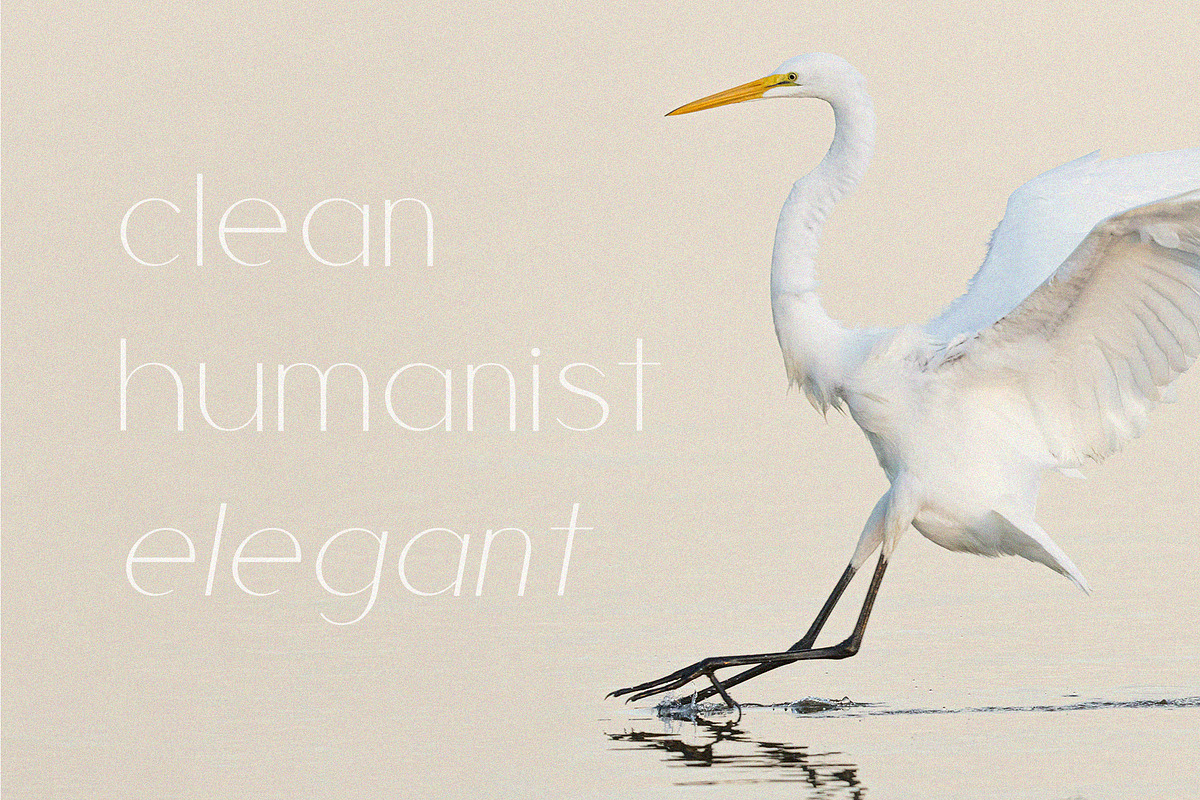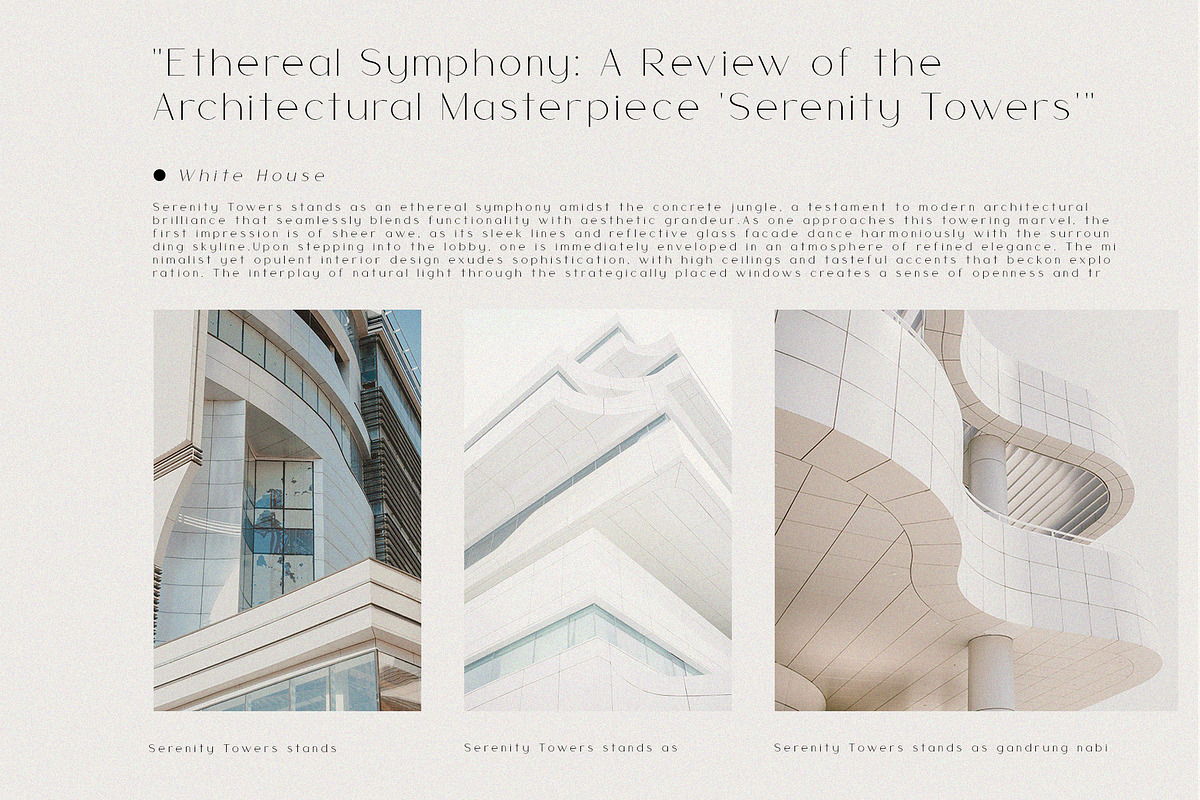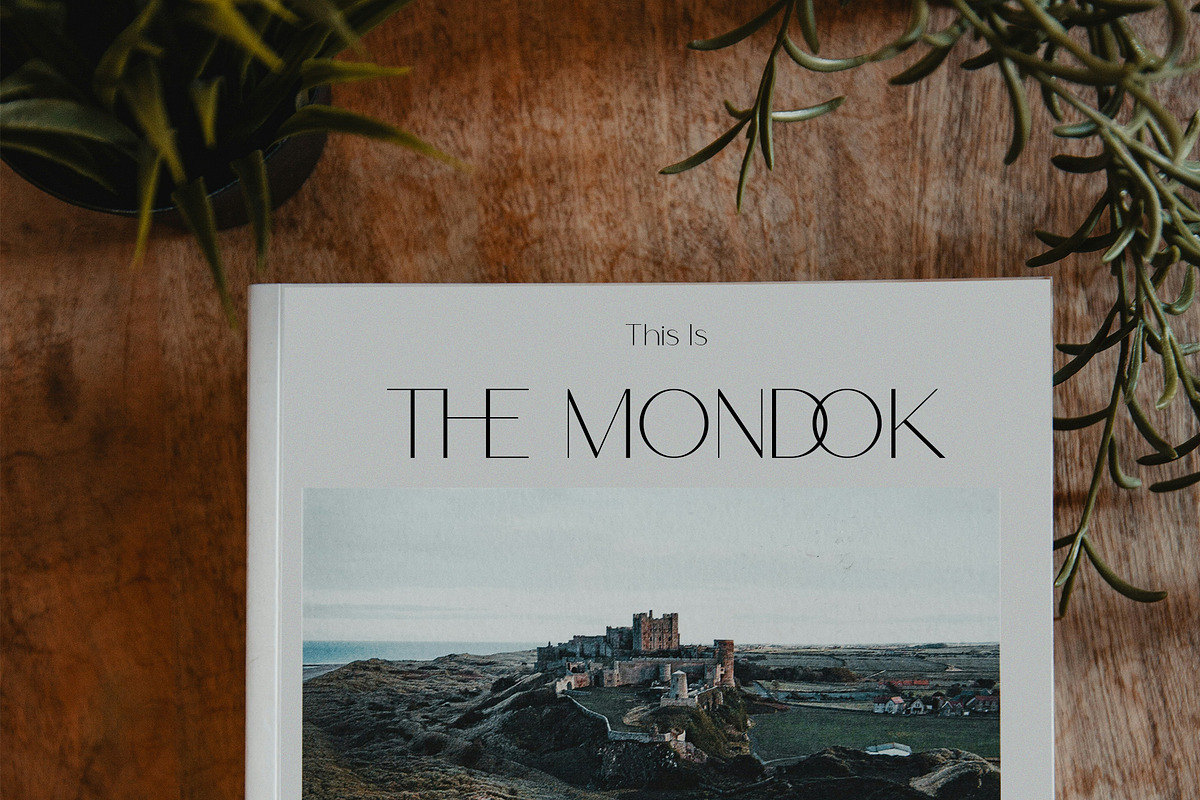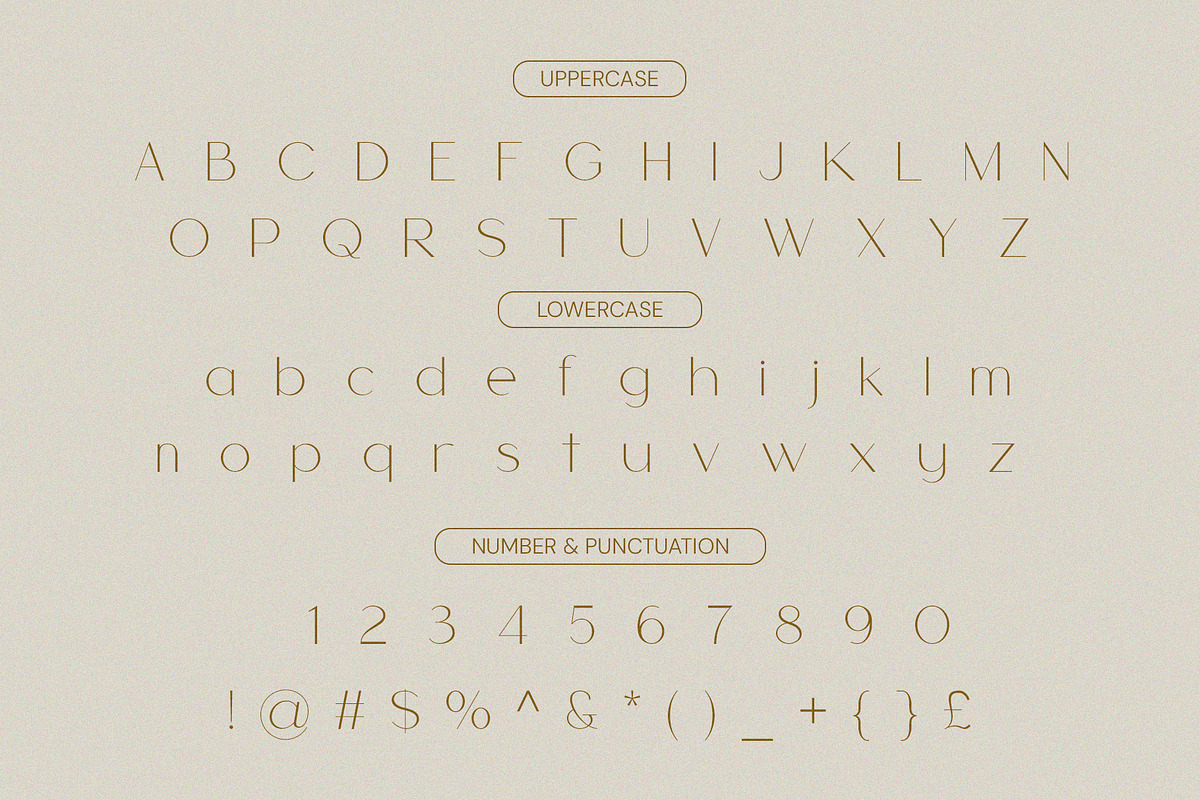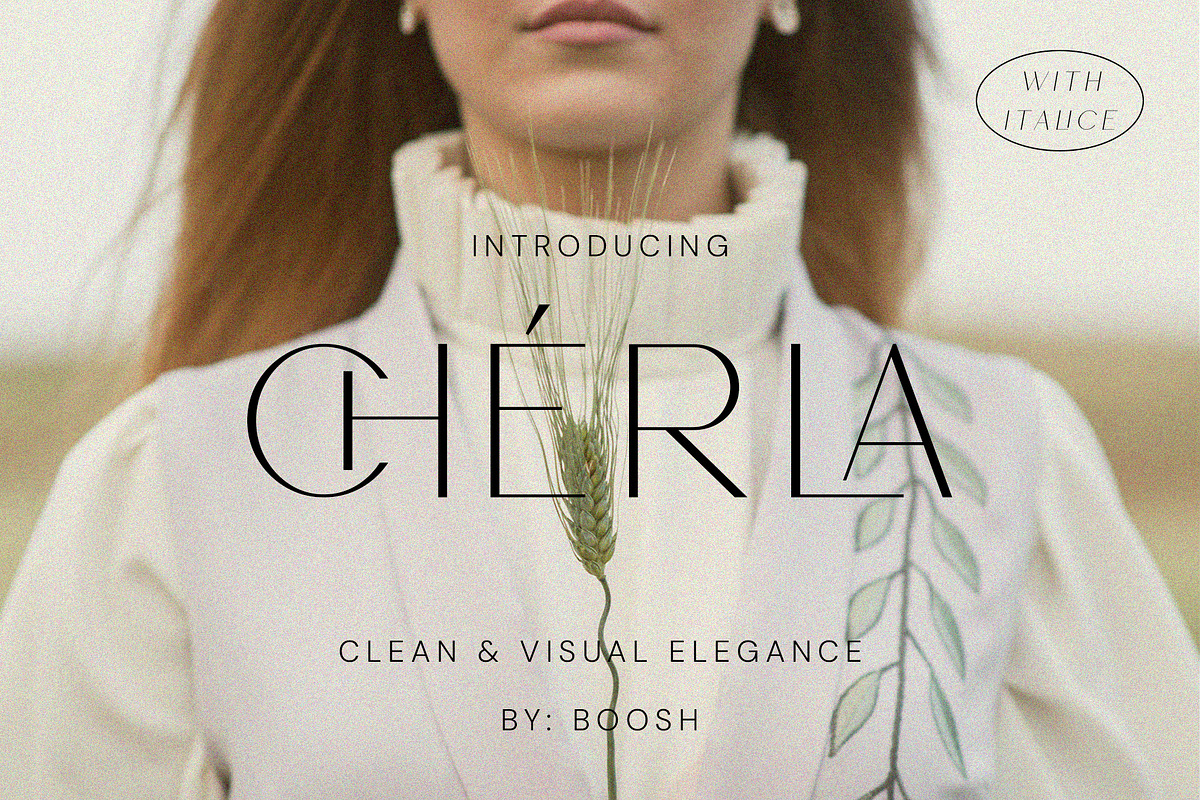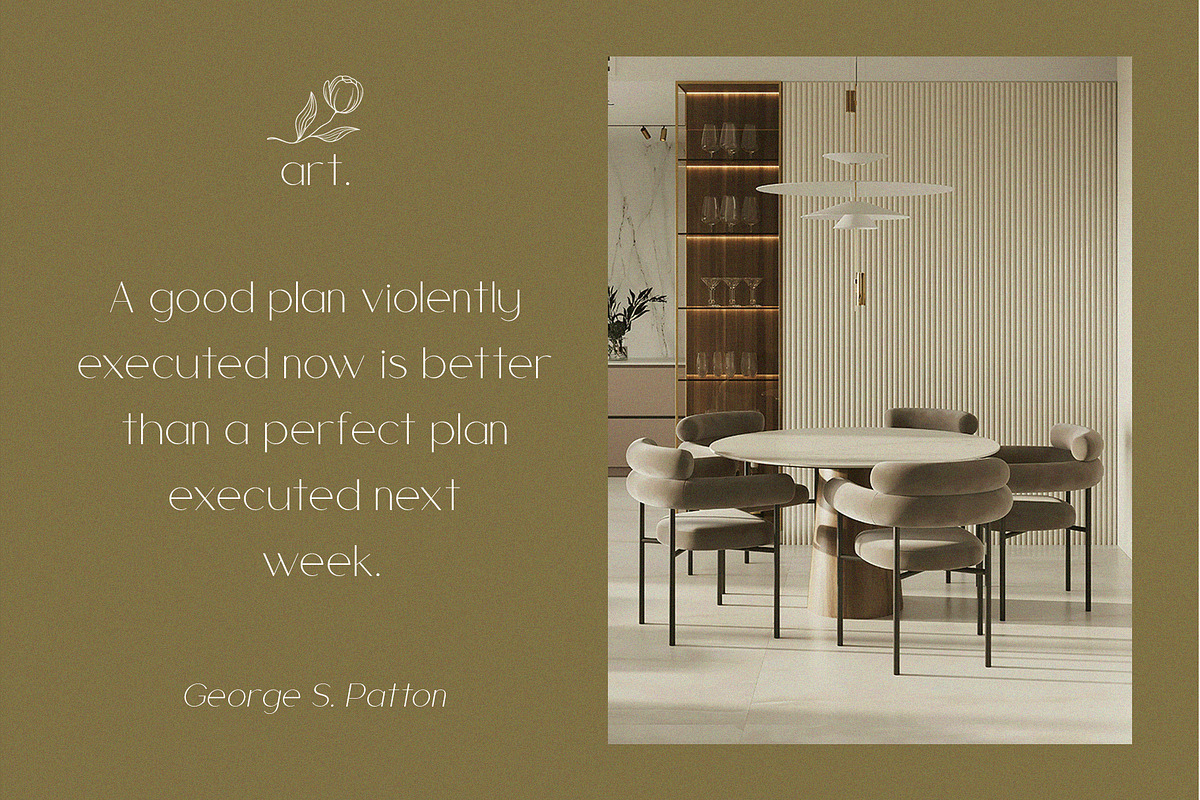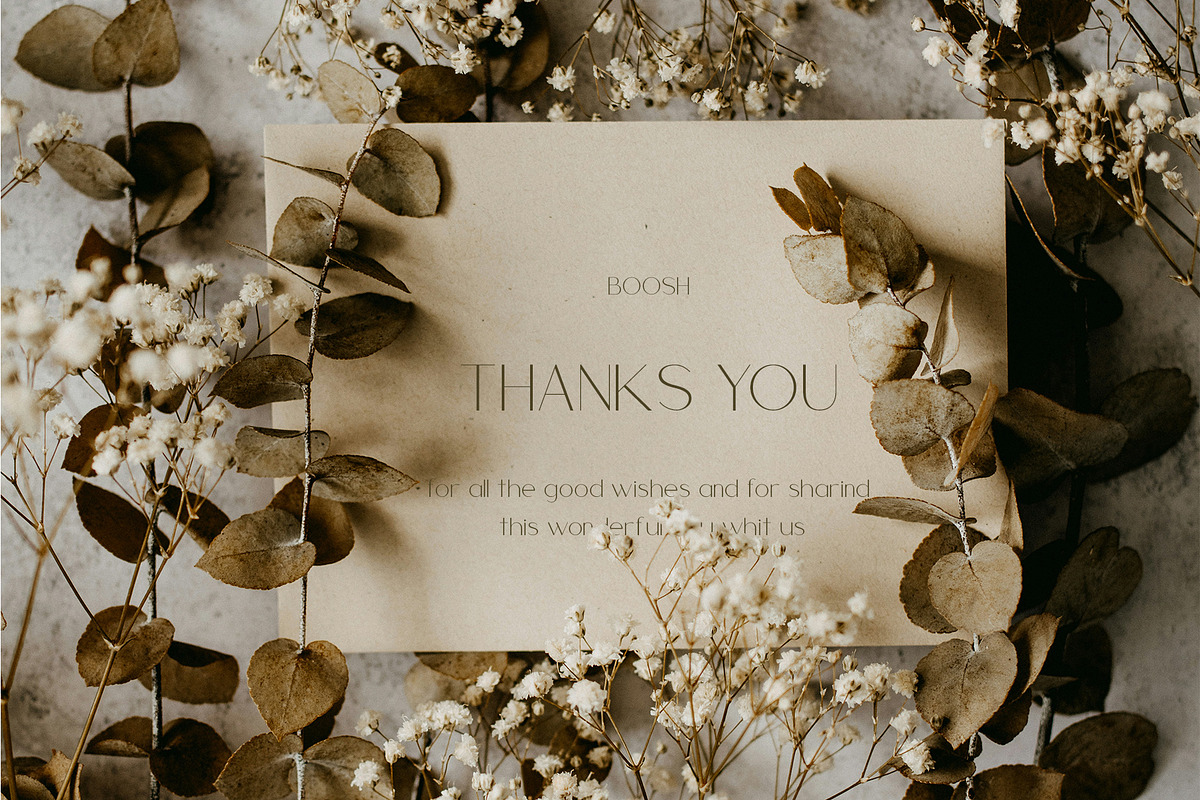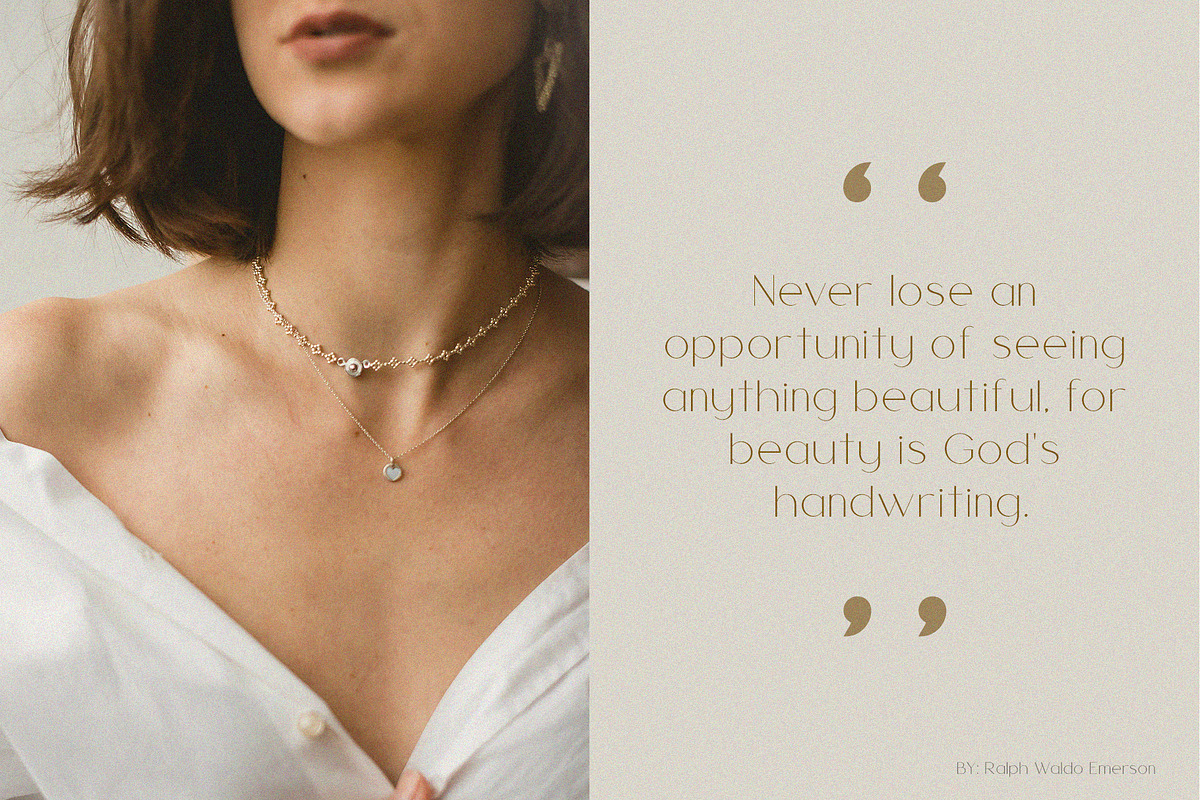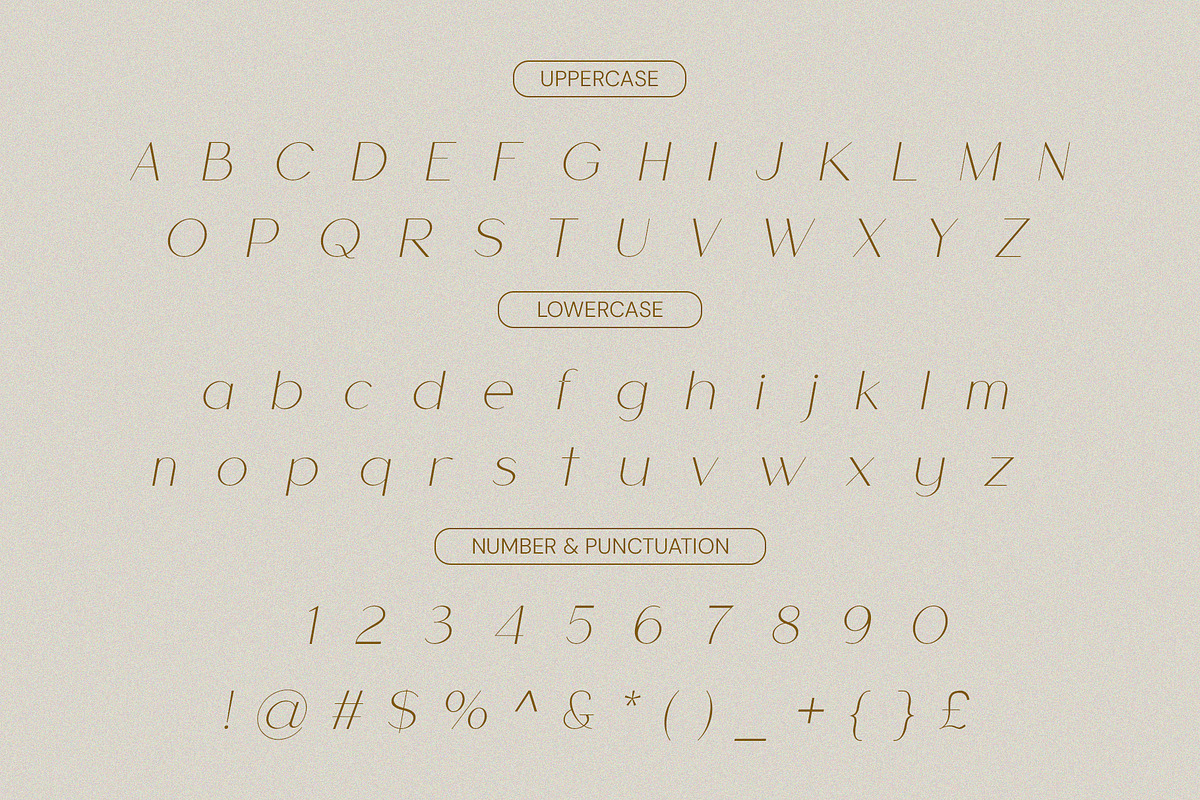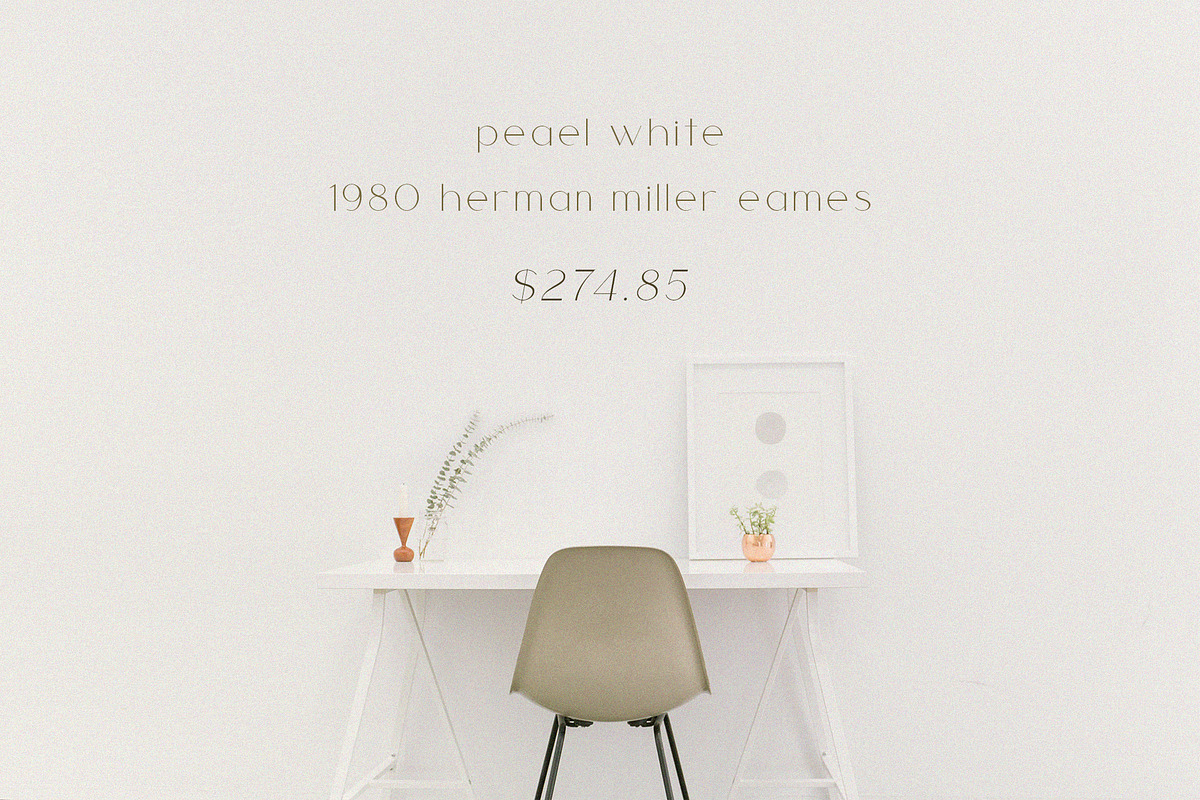
Cherla - Clean & Visual Elegance
CHERLA Sans Serif is a balanced, smooth, elegant and stylish sans serif font. This typeface has two main styles, Regular and Italic, It has a beautiful character. Very suitable to be combined with invitation card designs, company logos, film titles, film names, business cards, book titles, brand names and various other designs.